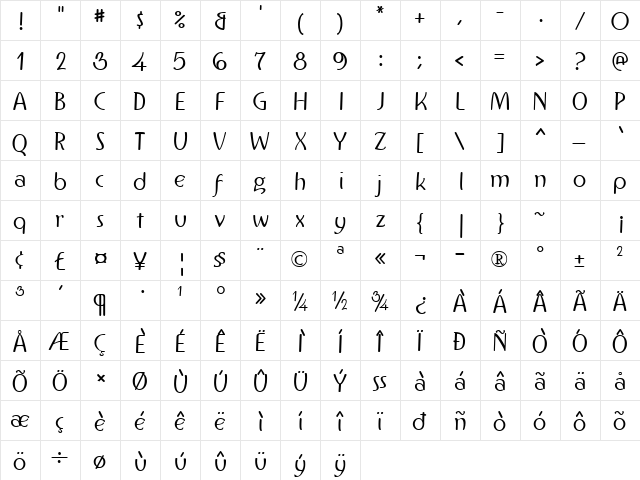
IngrianaCasual Plain
Design Context for IngrianaCasual Typeface
IngrianaCasual is a composed and adaptable typeface that performs quietly and consistently across a wide range of design contexts.